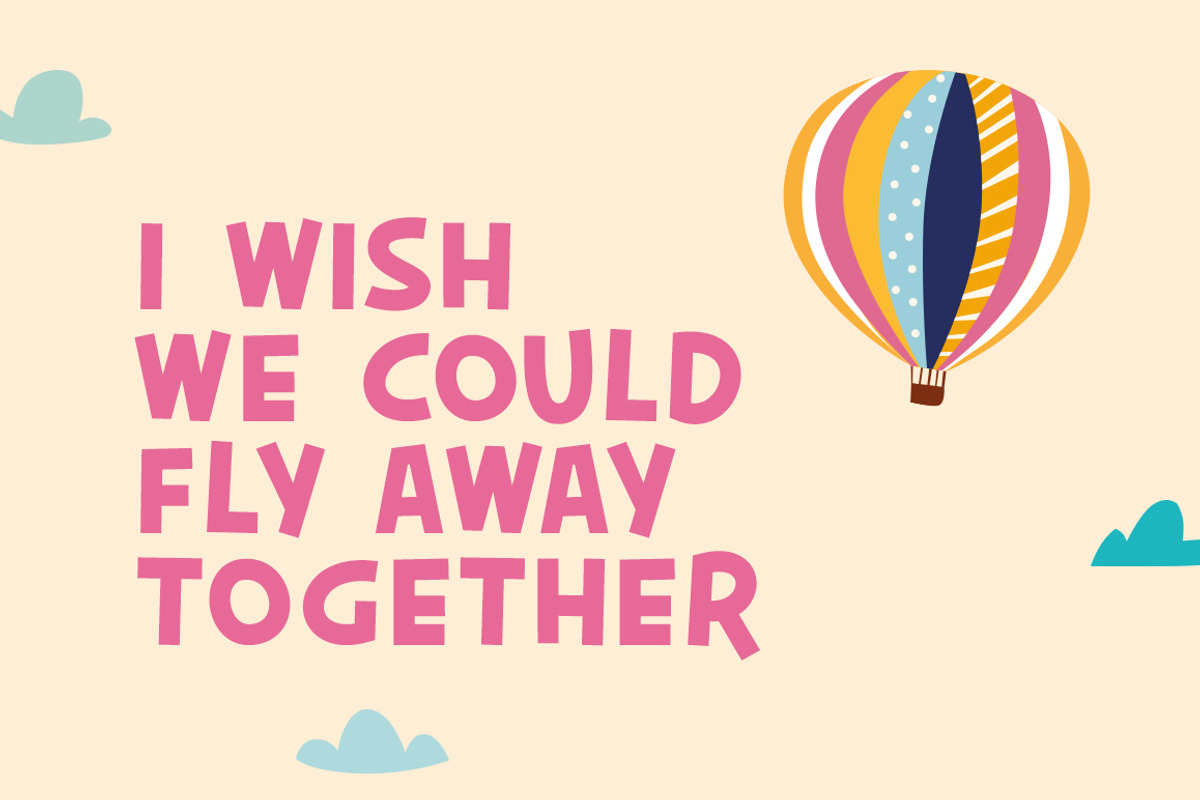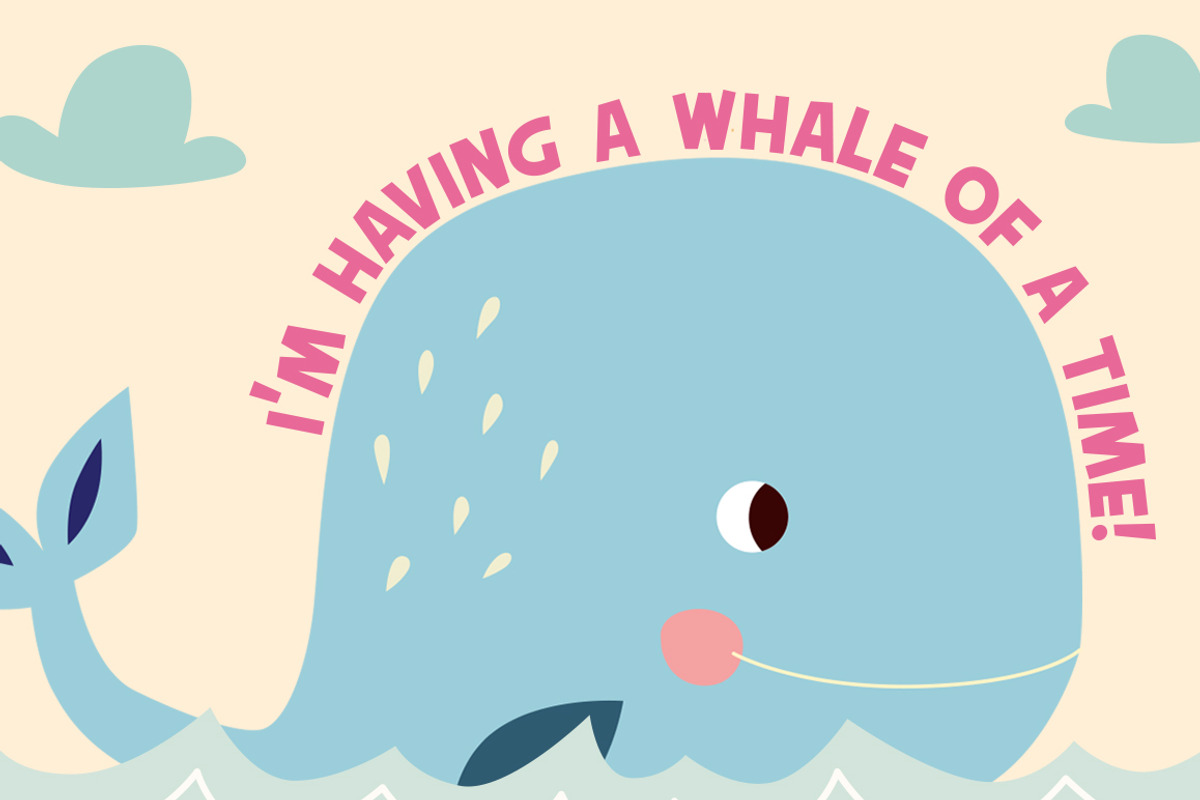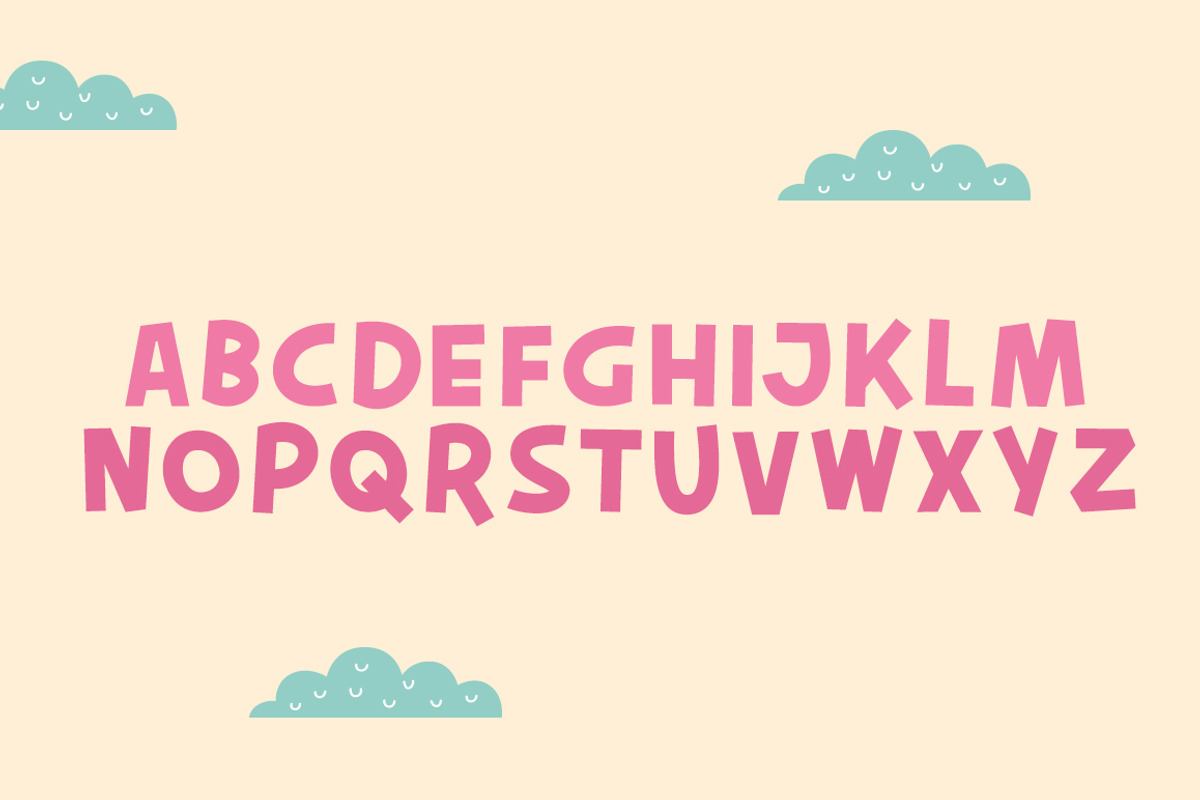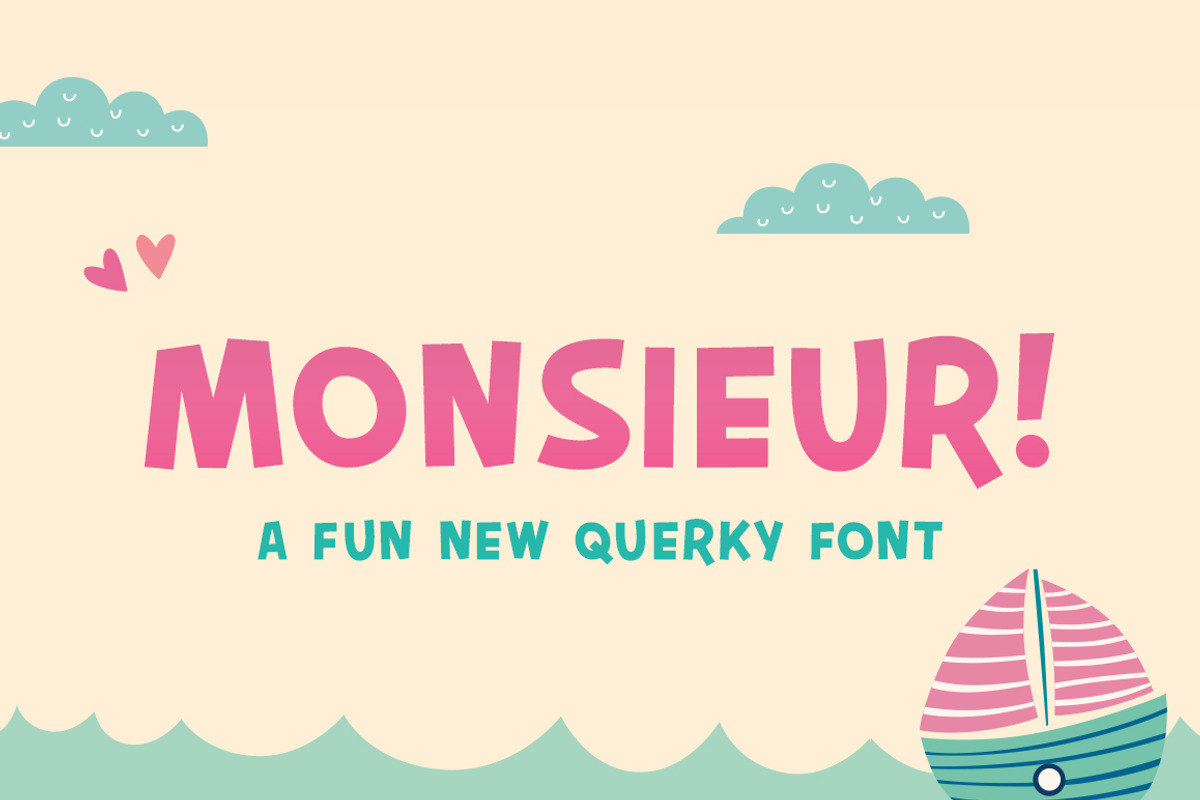
Monsieur Font
Grab this funky new font ‘Monsieur’ now! A wonderful new typeface from Salt & Pepper Designs. Created to be a perfect font to pair with scripts, serifs and every style in between! Try it for yourself!
Why Monsieur Font is worth a look
Monsieur Font by Salt & Pepper Designs fits naturally into Branding, posters, packaging, typography.